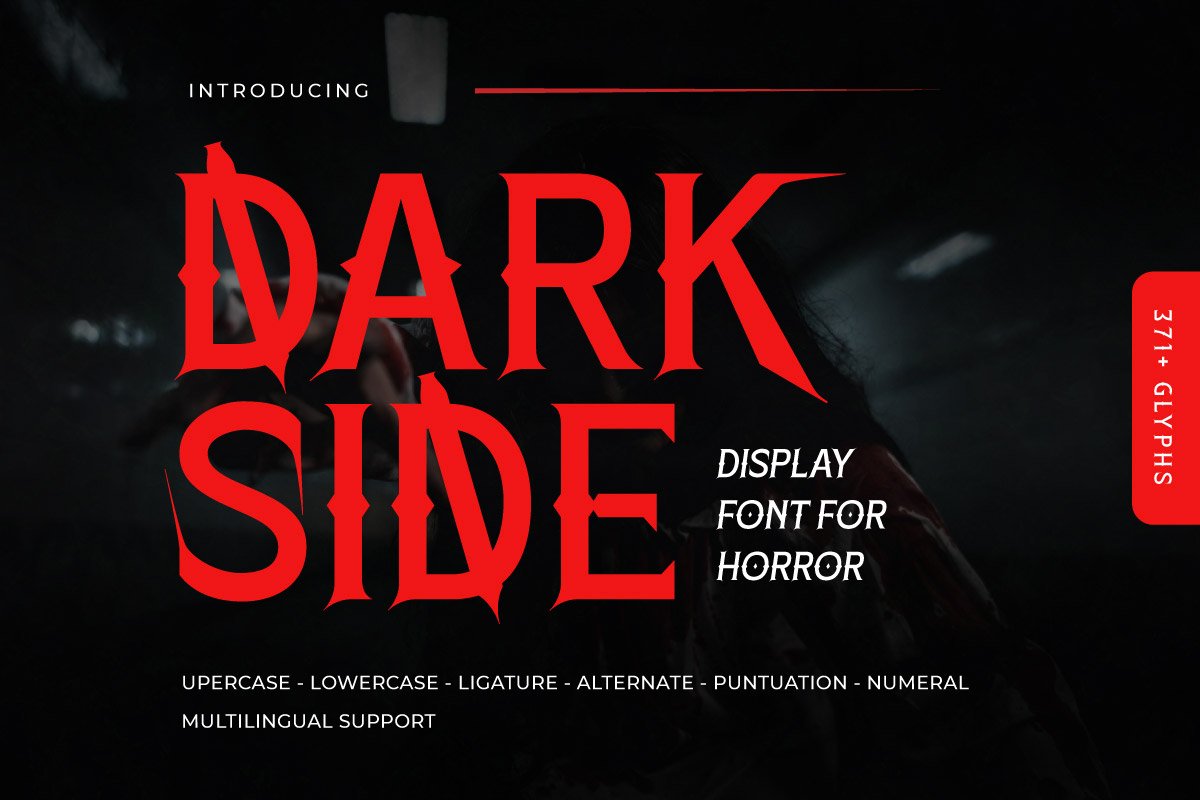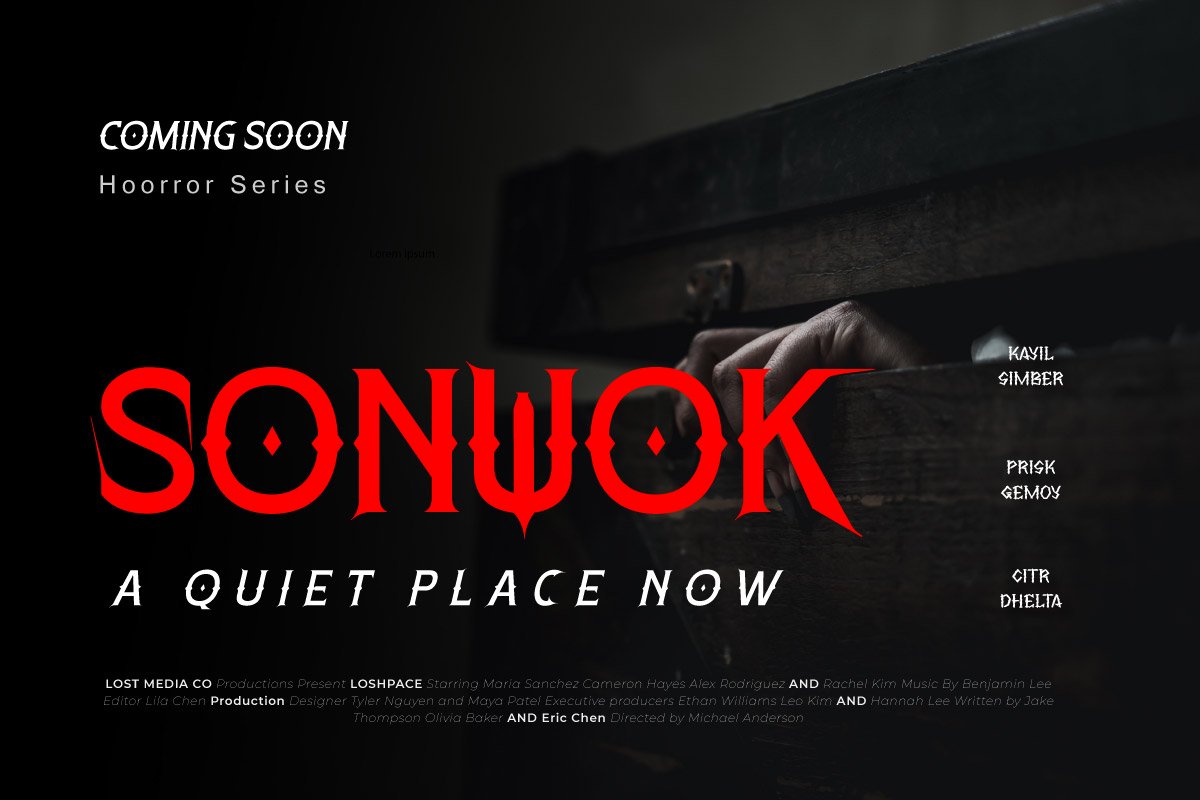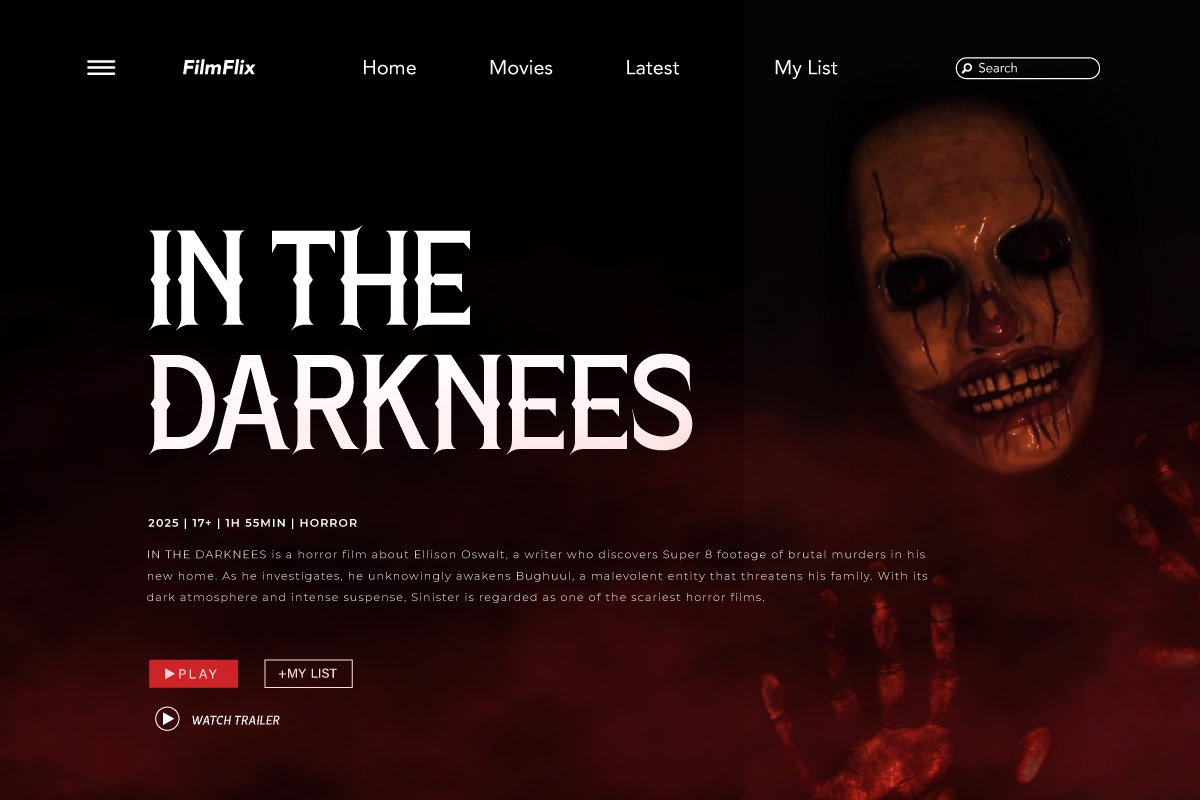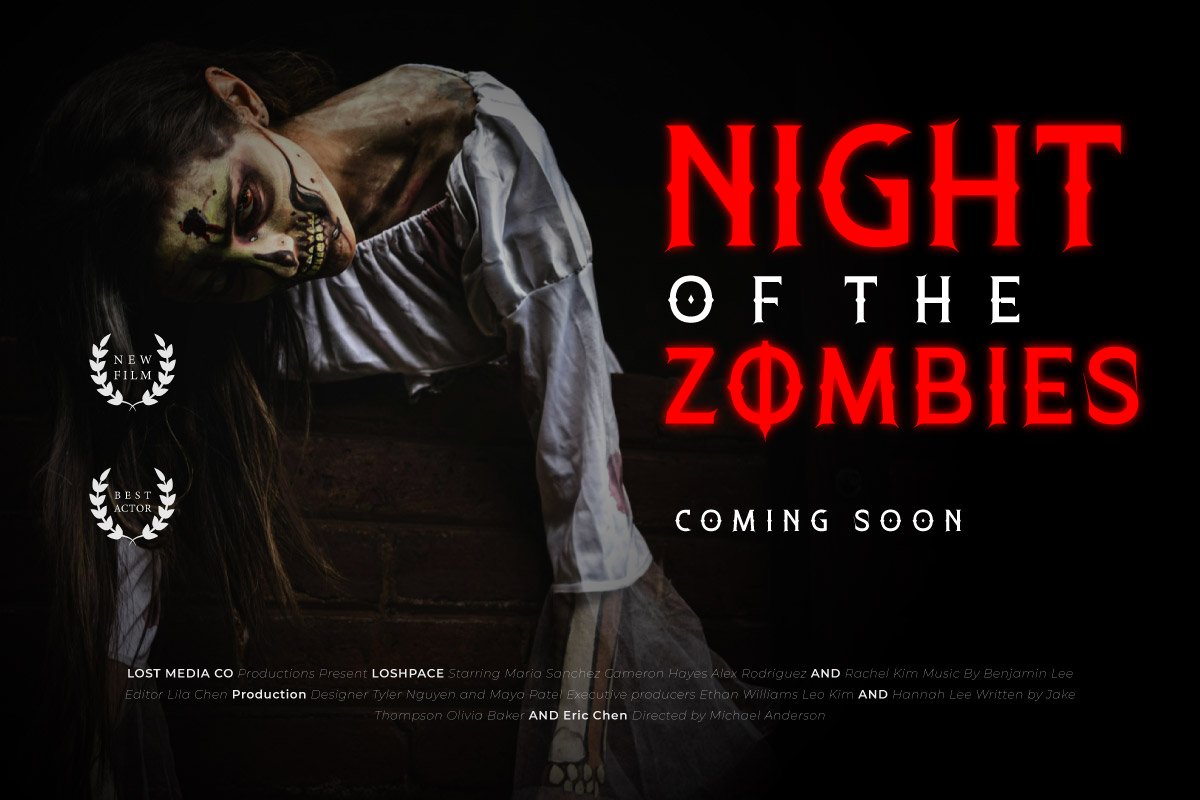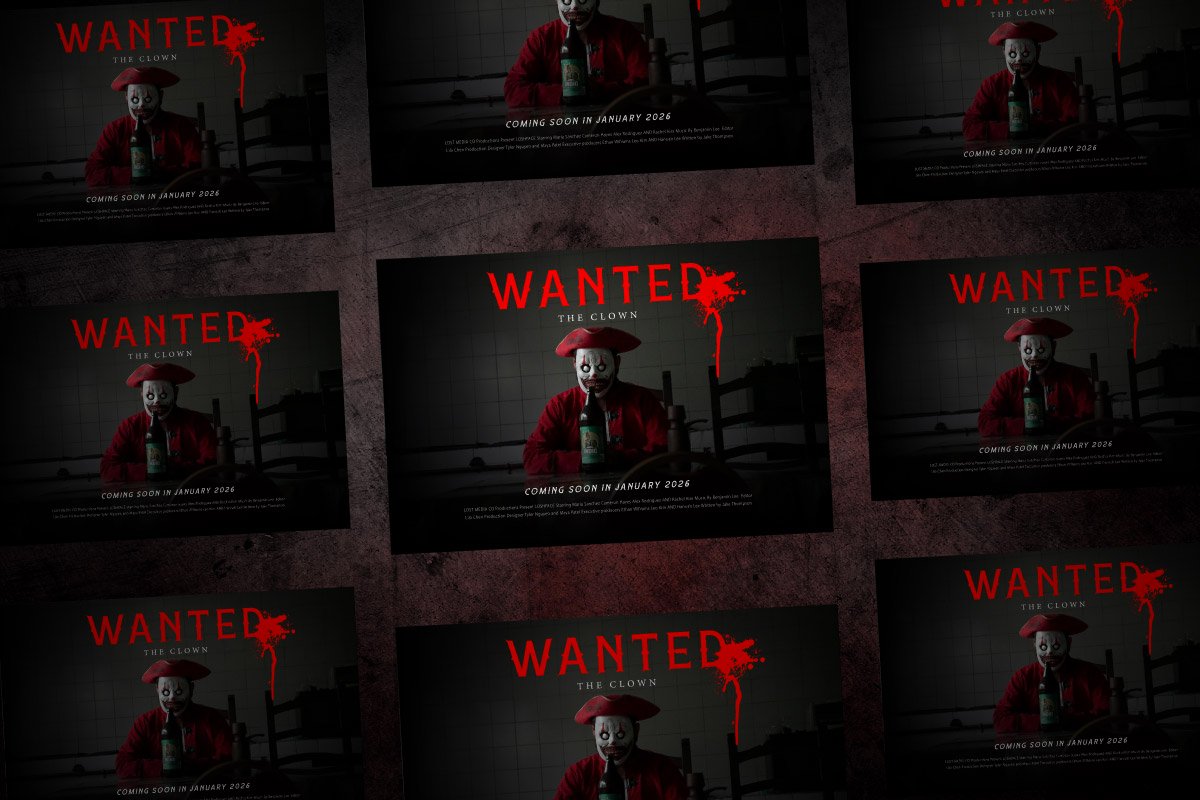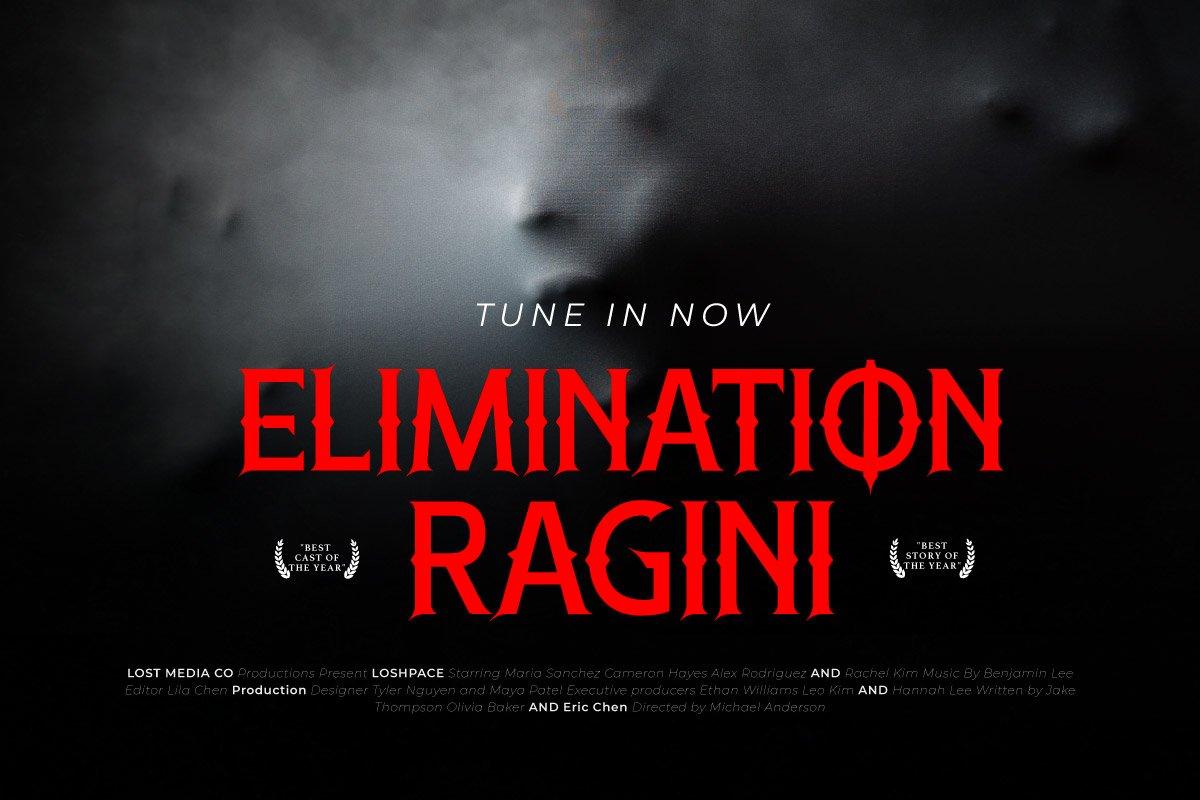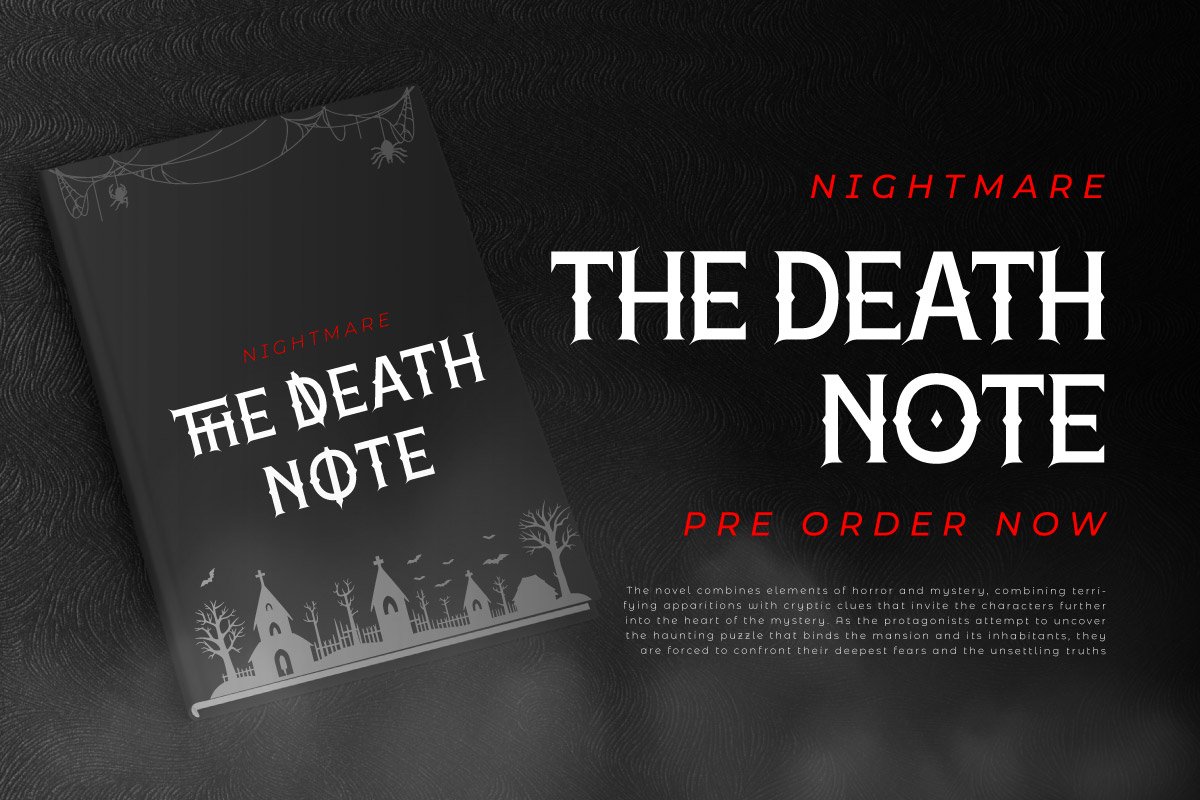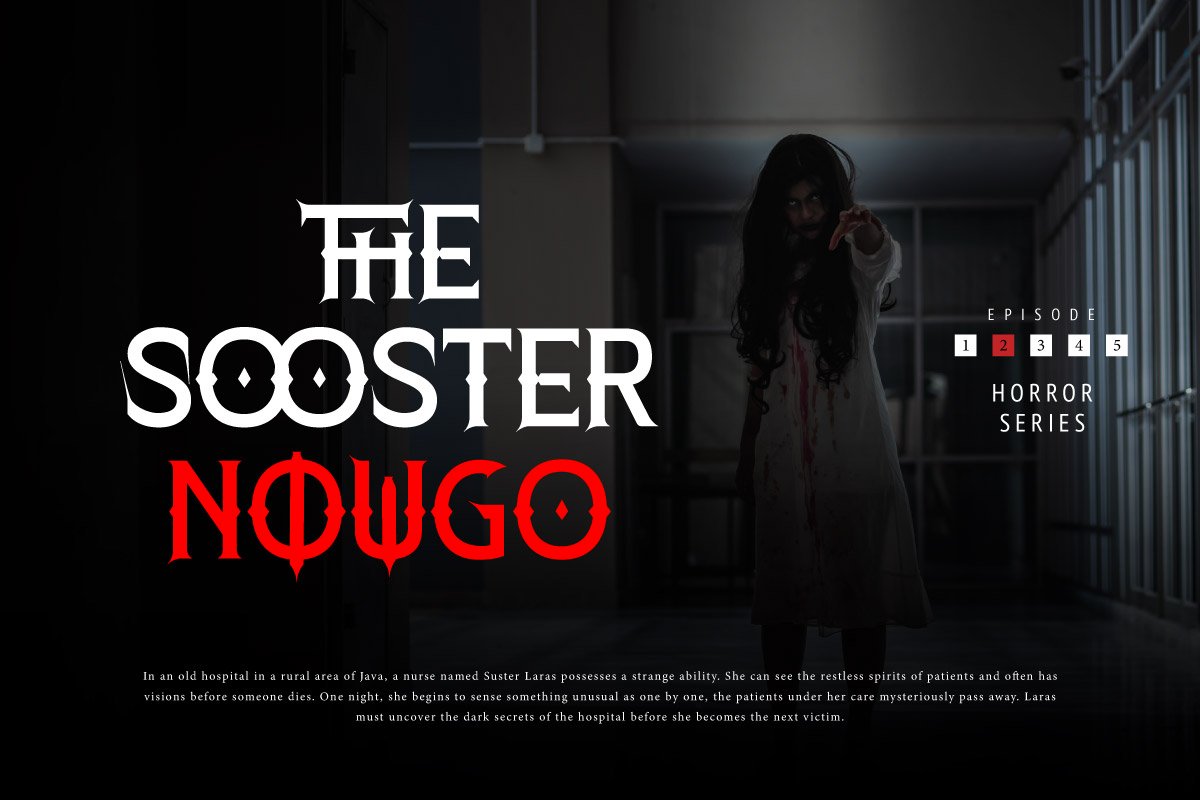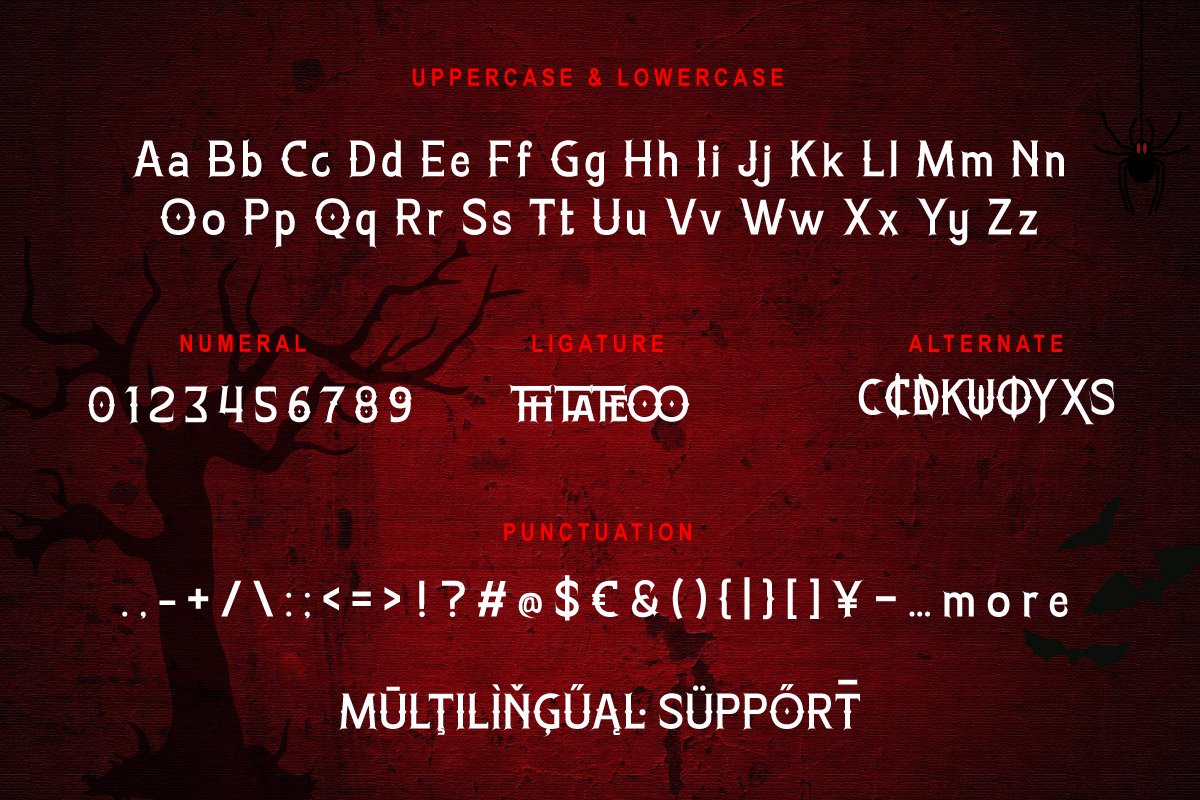
Darkside – Horror Movie Font
Darkside is a chilling horror movie display font that embodies the essence of fear, suspense, and darkness. With jagged edges, unsettling curves, and an intense visual impact, this font is perfect for projects that dive deep into the eerie and macabre. Whether you’re working on a horror film title, thriller poster, scary game logo, or haunted house branding, Darkside delivers an unforgettable sinister vibe.
Designed to send shivers down the spine, each letter in Darkside looks like it was carved from shadows—evoking images of lurking creatures, haunted forests, and terrifying mysteries. It’s bold, dramatic, and screams horror in every stroke, making it the go-to typeface for anything spine-tingling and scream-worthy.
Let your designs enter the darkness with Darkside, a typeface that doesn’t just speak horror—it haunts it.